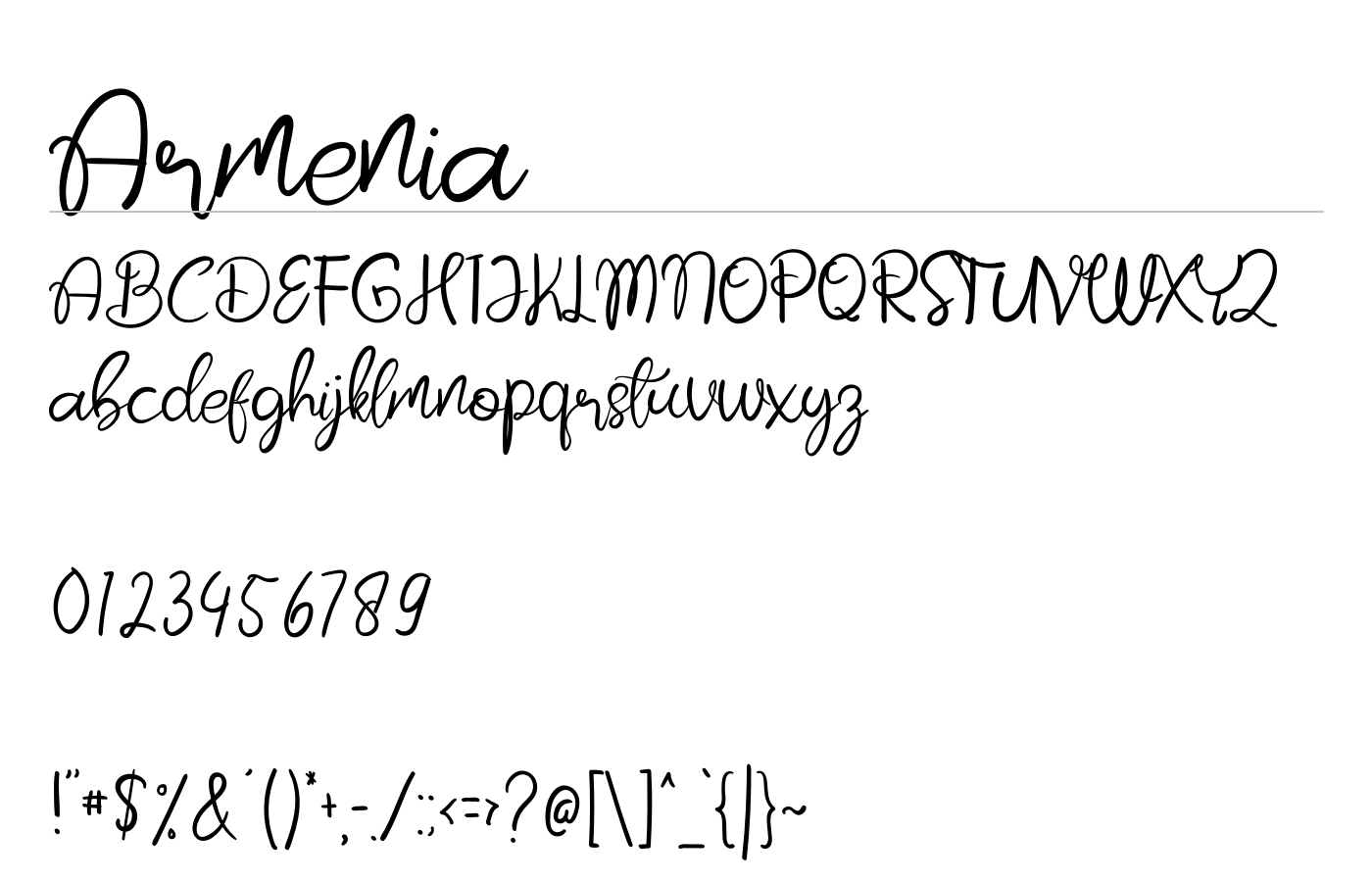
Armenia Font is a playful and elegant handwritten script with smooth, flowing strokes and a casual yet refined style. Its tall, airy letterforms and slightly irregular lines give it a friendly, approachable personality, making it perfect for creative projects like invitations, branding, and personal stationery where a warm, unique touch is desired. This font works well in both display and short text settings, adding a personal and artistic flair.
Armenia Font
About Armenia Font